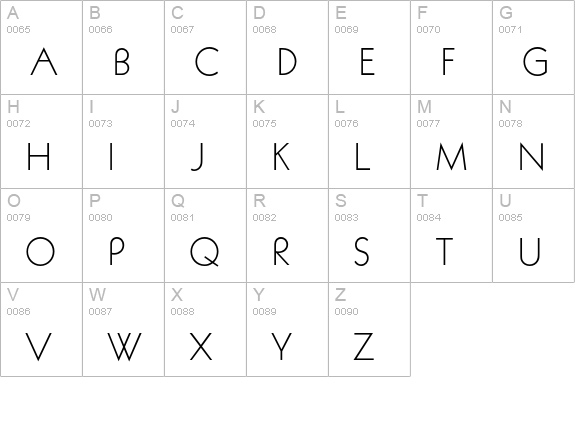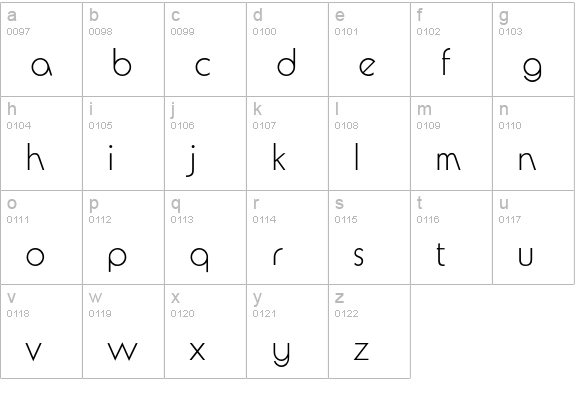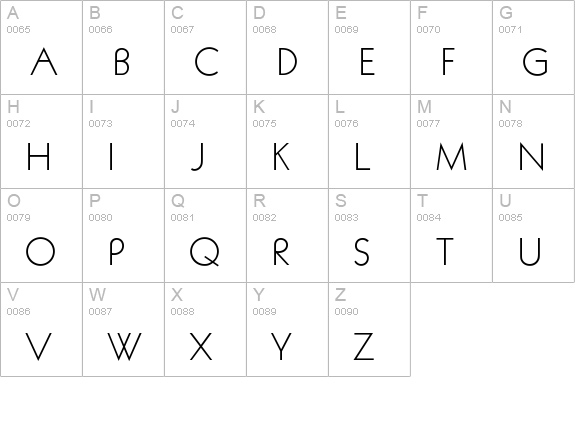
Avalon-Light is a refined, elegant variant in the Avalon typeface family \xE2\x80\x94 well suited to elegant body text, refined sub-headings, and luxury branding.
Avalon-Light is a stylish and elegant font that exudes sophistication and modernity. With its clean lines and delicate curves, this font is perfect for adding a touch of refinement to any project. The light weight of Avalon-Light gives it a delicate and airy appearance, making it ideal for use in designs that require a subtle and elegant touch. What's even better is that Avalon-Light is available for free download at FontsMarket.com. This means that you can easily access this beautiful font and use it in your projects without any cost. Whether you're creating invitations, posters, or branding materials, Avalon-Light is sure to elevate your designs and make them stand out. Download Avalon-Light today and add a touch of sophistication to your work!